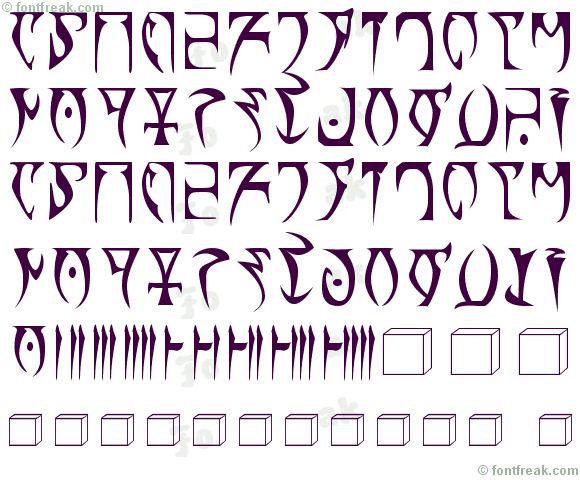
Daedra
About Daedra
Daedra, crafted by Neale Davidson in 2012, is a striking display font that showcases a unique, decorative style. This typeface features bold, angular letters with a distinct Gothic influence, making it a compelling choice for projects that require a touch of drama and flair. The stroke weight is consistent, offering a solid appearance, while the high contrast between thick and thin lines gives it an eye-catching quality. The spacing is thoughtfully designed to maintain legibility, even in larger settings, allowing for versatility in its application.
Ideal for a range of creative uses, the Daedra font is particularly well-suited for designing movie posters, where its bold character can capture attention and convey a sense of intrigue. It also shines in the realm of fantasy-themed event invitations, adding an element of mystique that resonates with fans of the genre. Additionally, this typeface can elevate branding for niche businesses, especially those related to gaming or artistic ventures, by providing a distinctive visual identity. Content creators, seeking to infuse their projects with a dramatic flair, will also find the Daedra font to be a valuable asset.